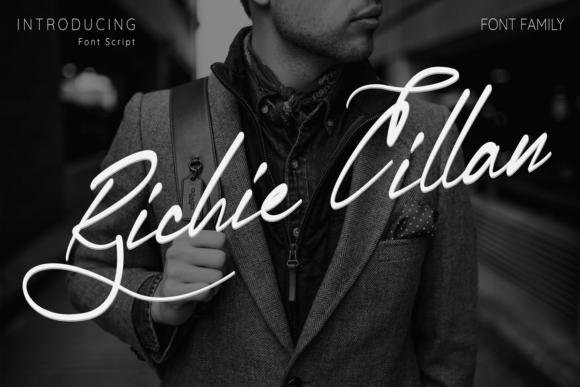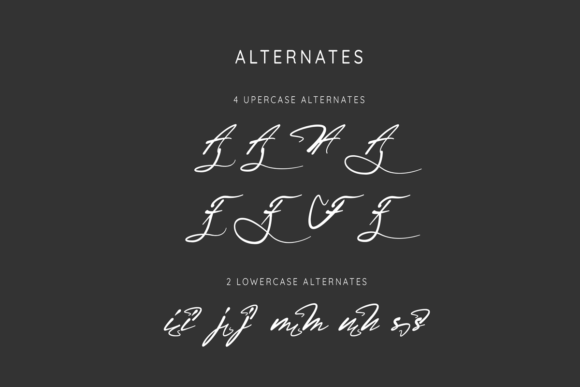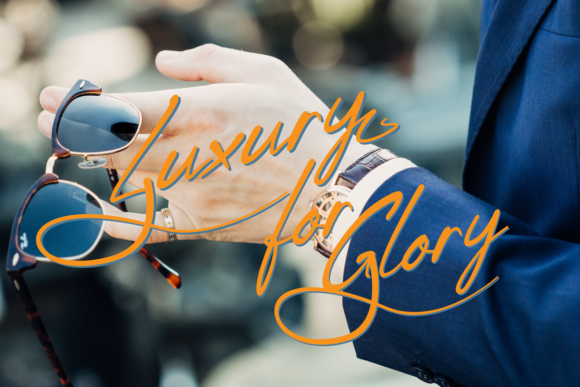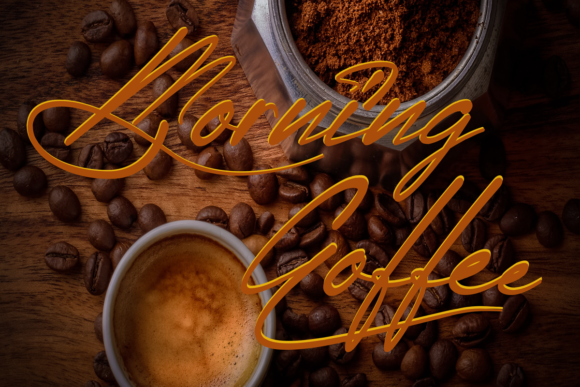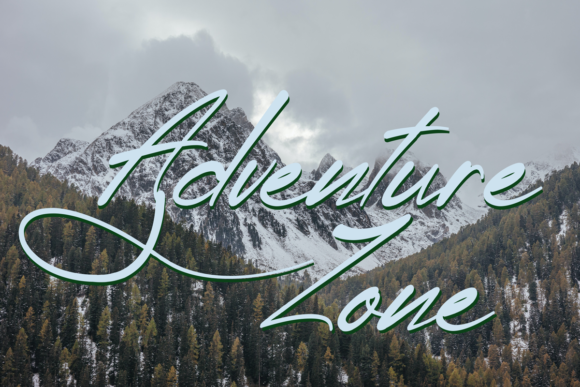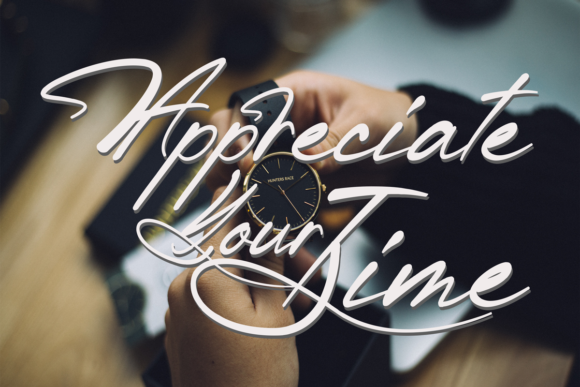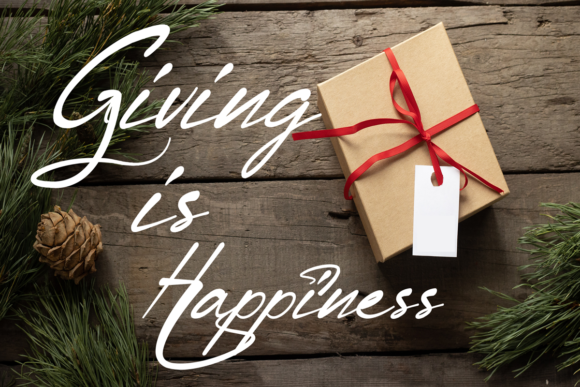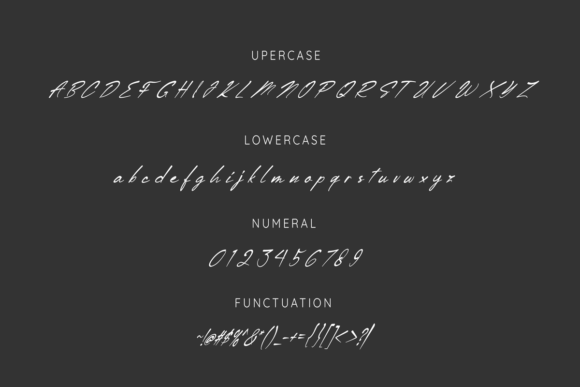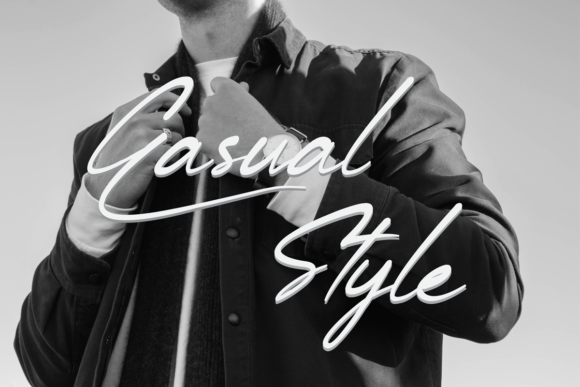
Richie Cillan Font
About Richie Cillan Font
Richie Cillan is a beautiful script font for those of you who want to add elegance, luxury, and a unique style to all your designs. It is perfect for branding projects, logos, wedding designs, social media posts, advertising, product packaging, product design, labels, photography, watermarks, invitations, stationery, and any project that requires a beautiful handwriting feel.